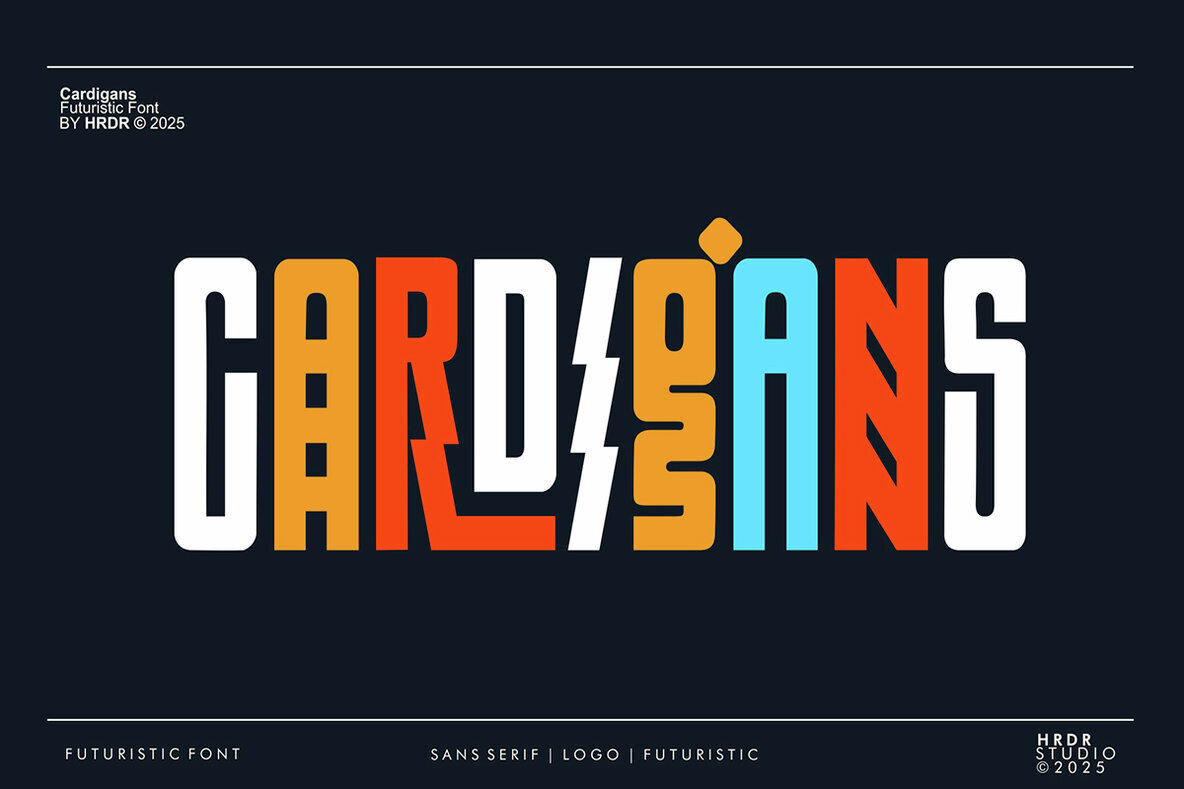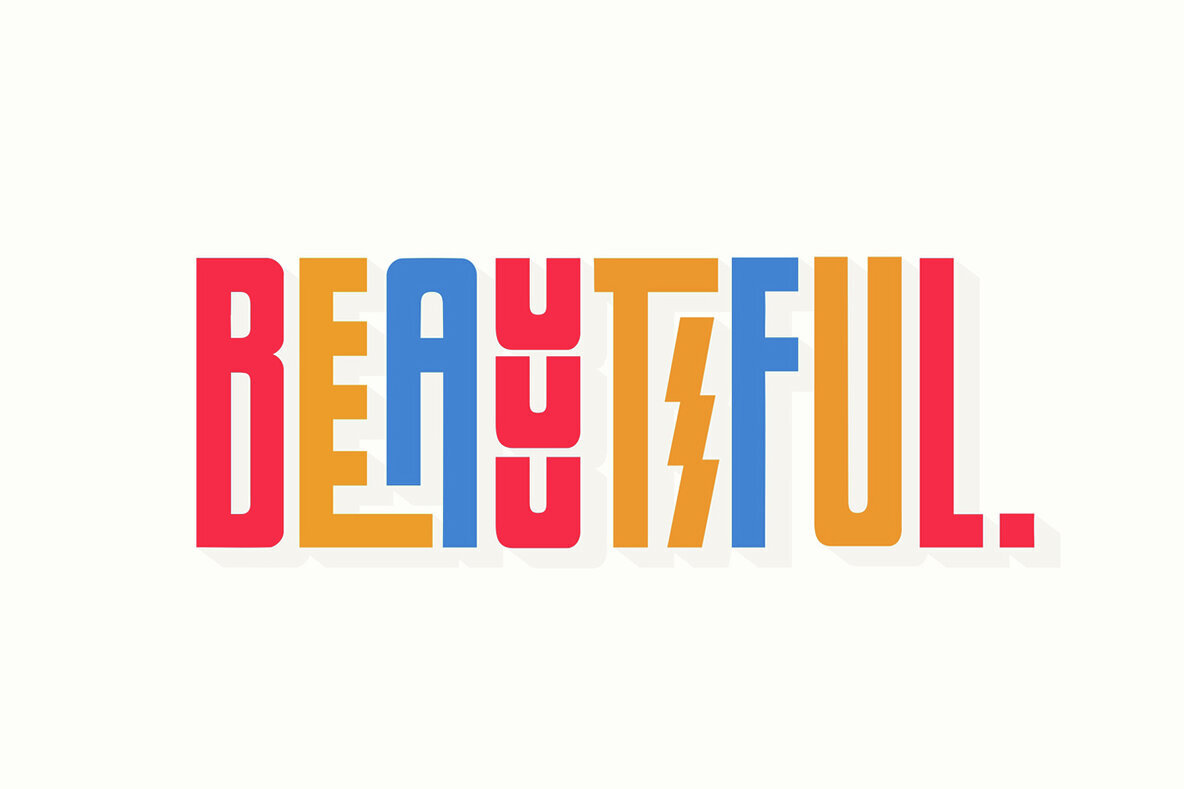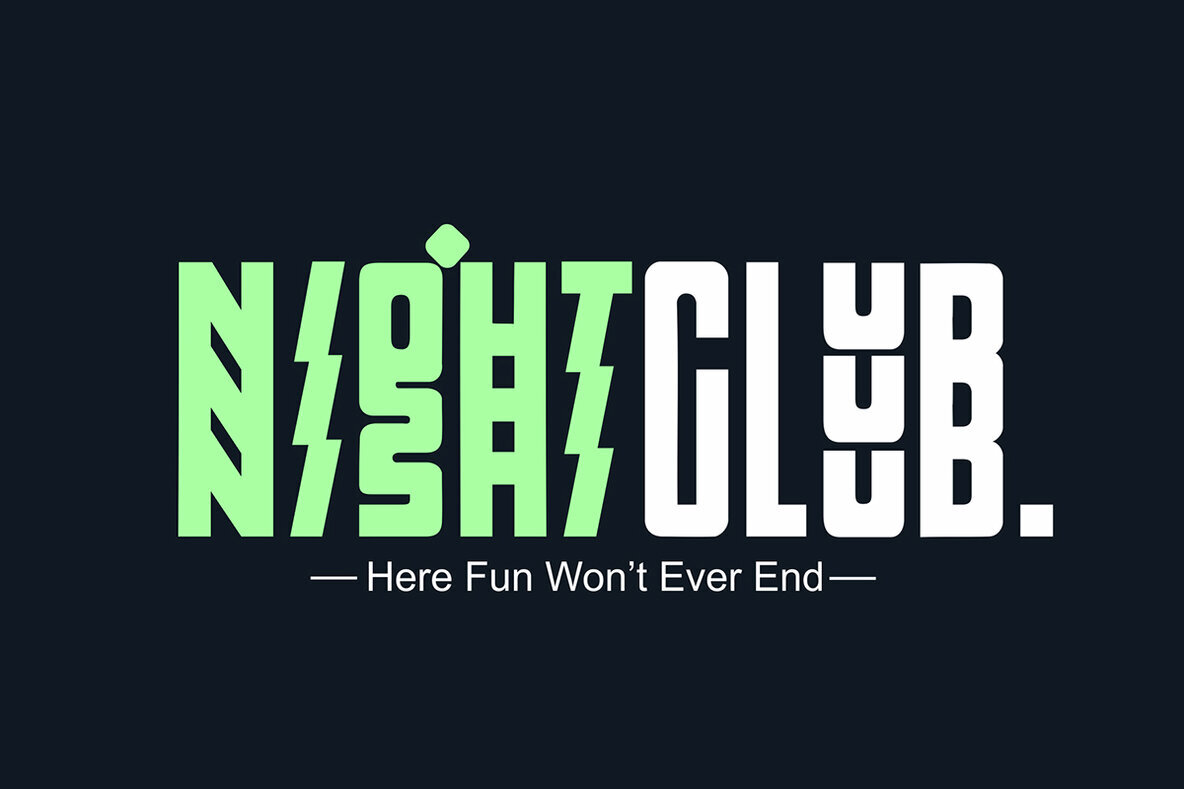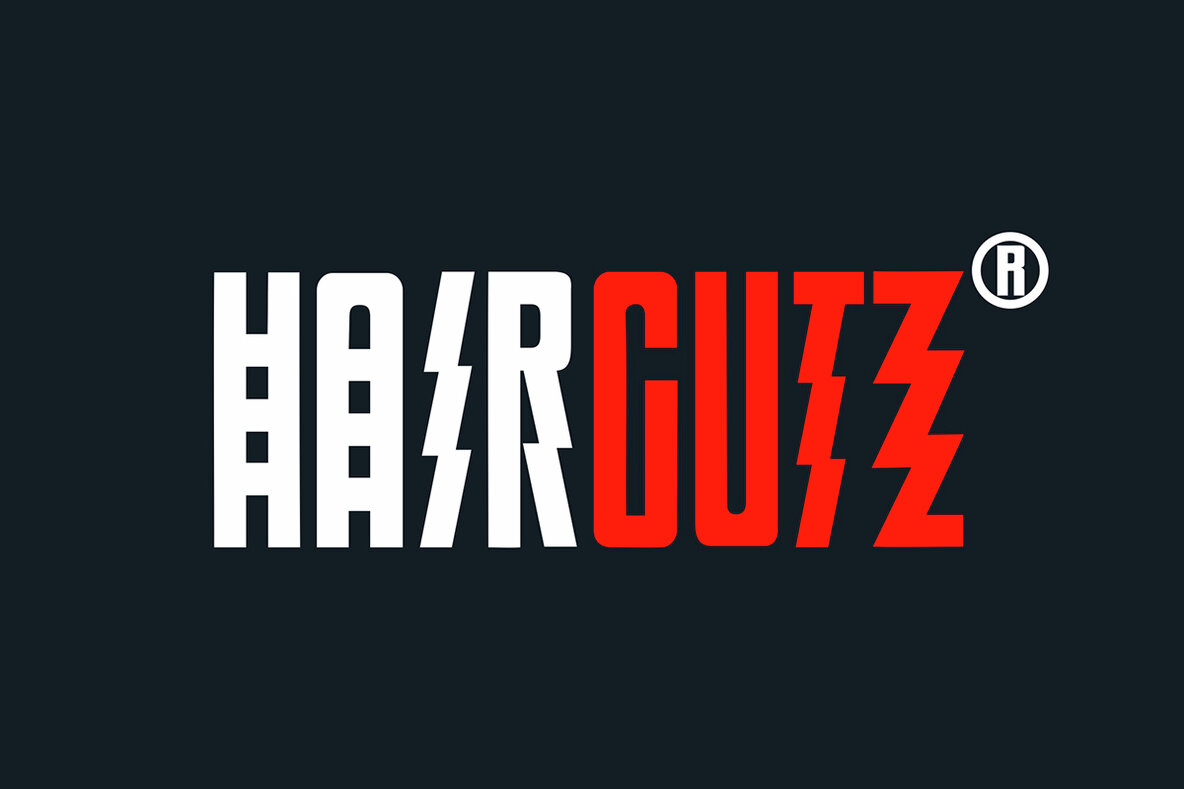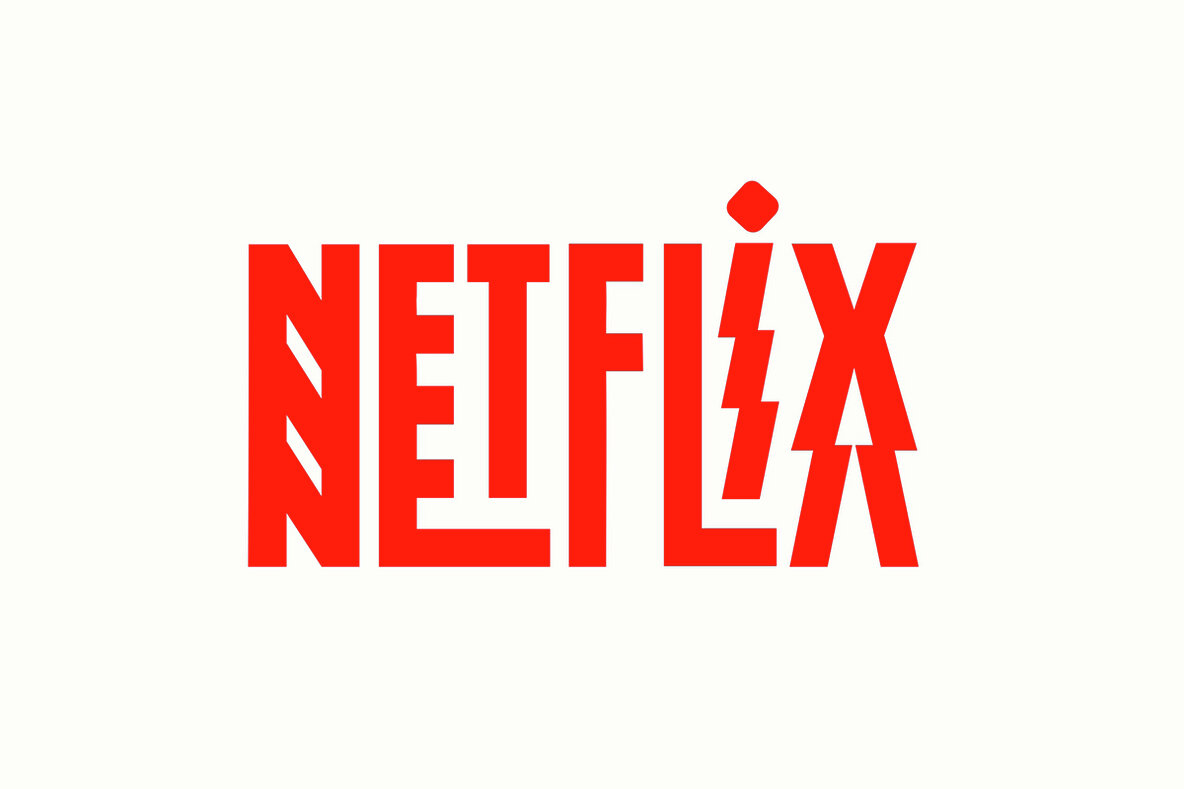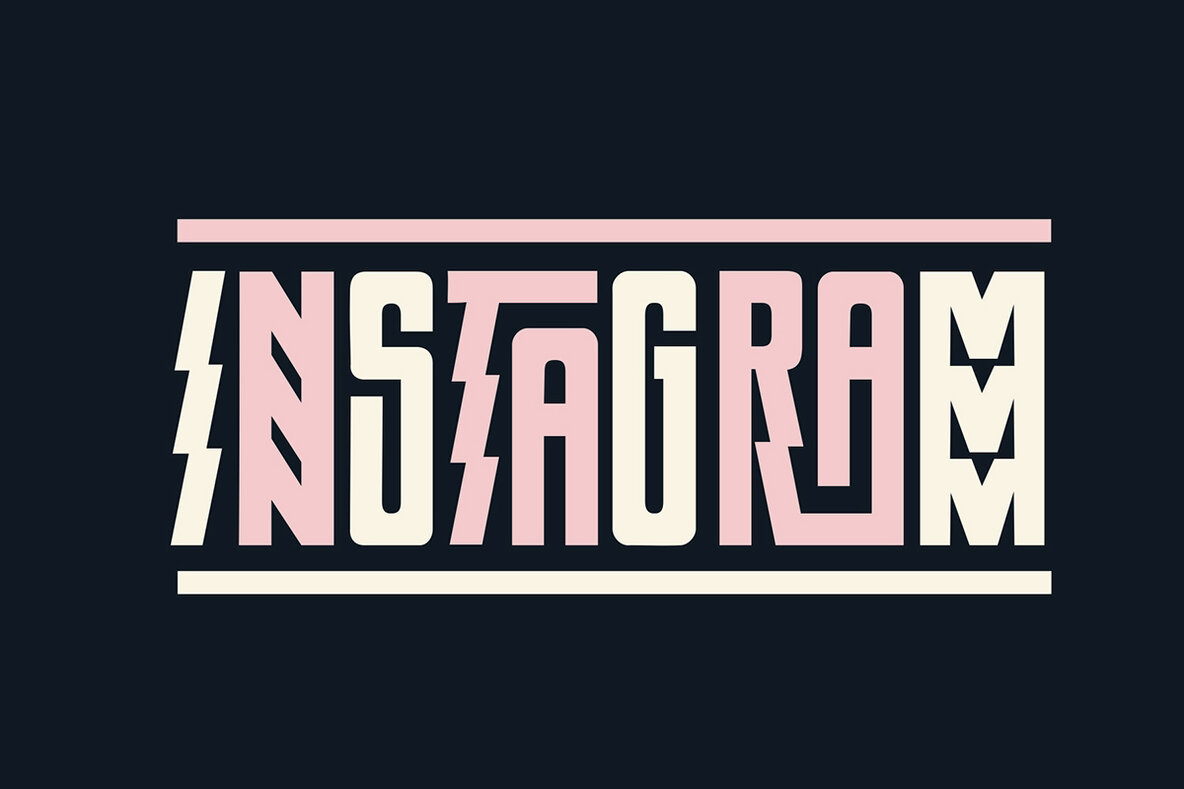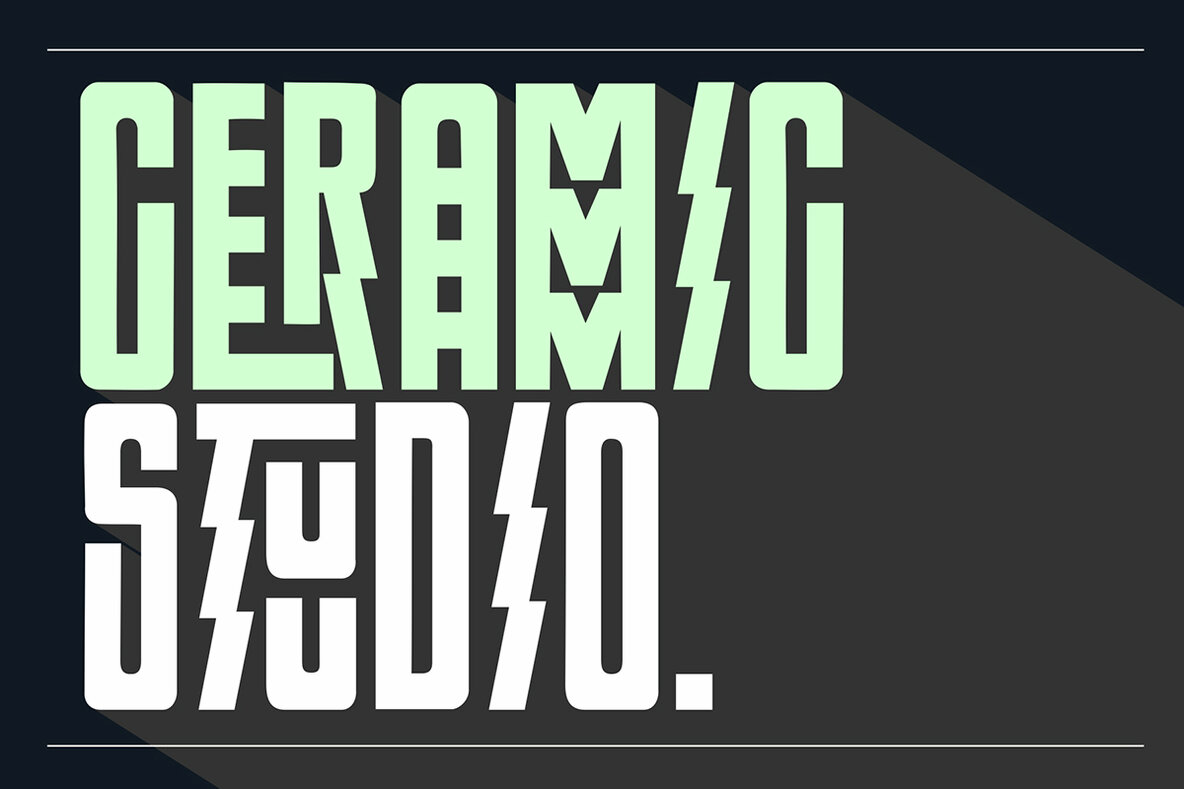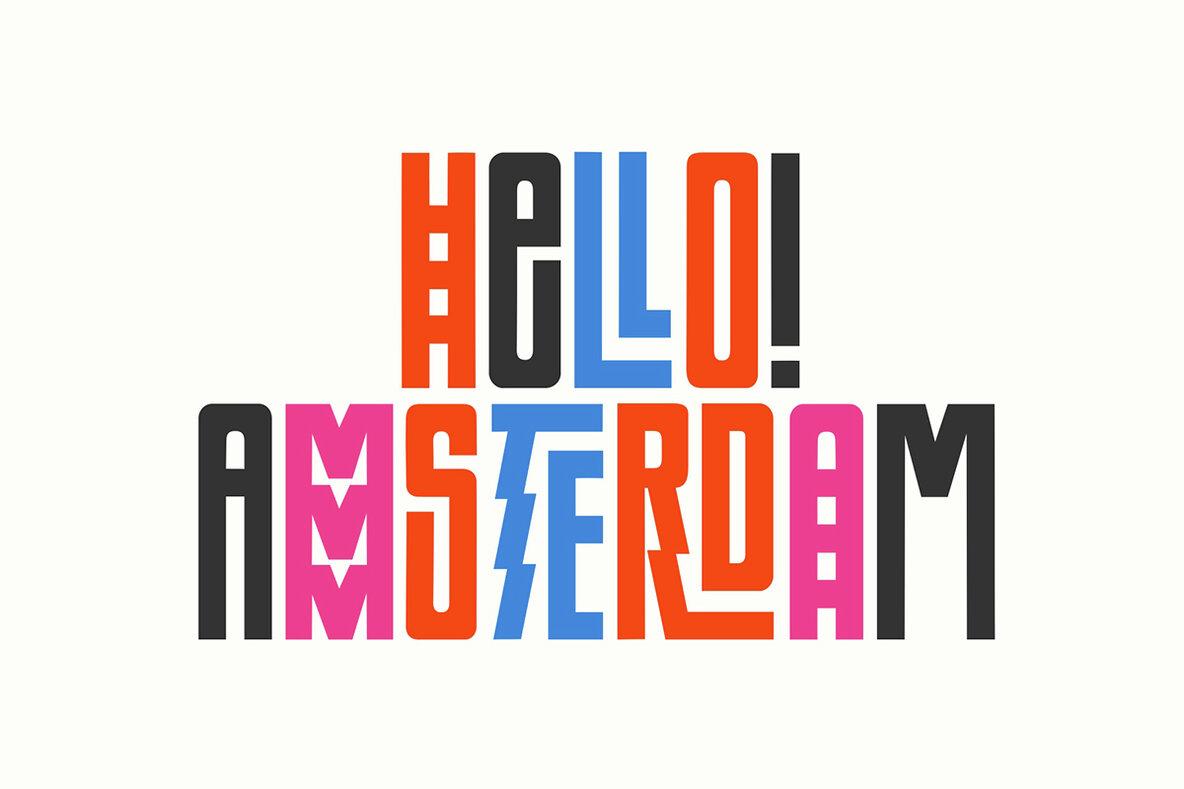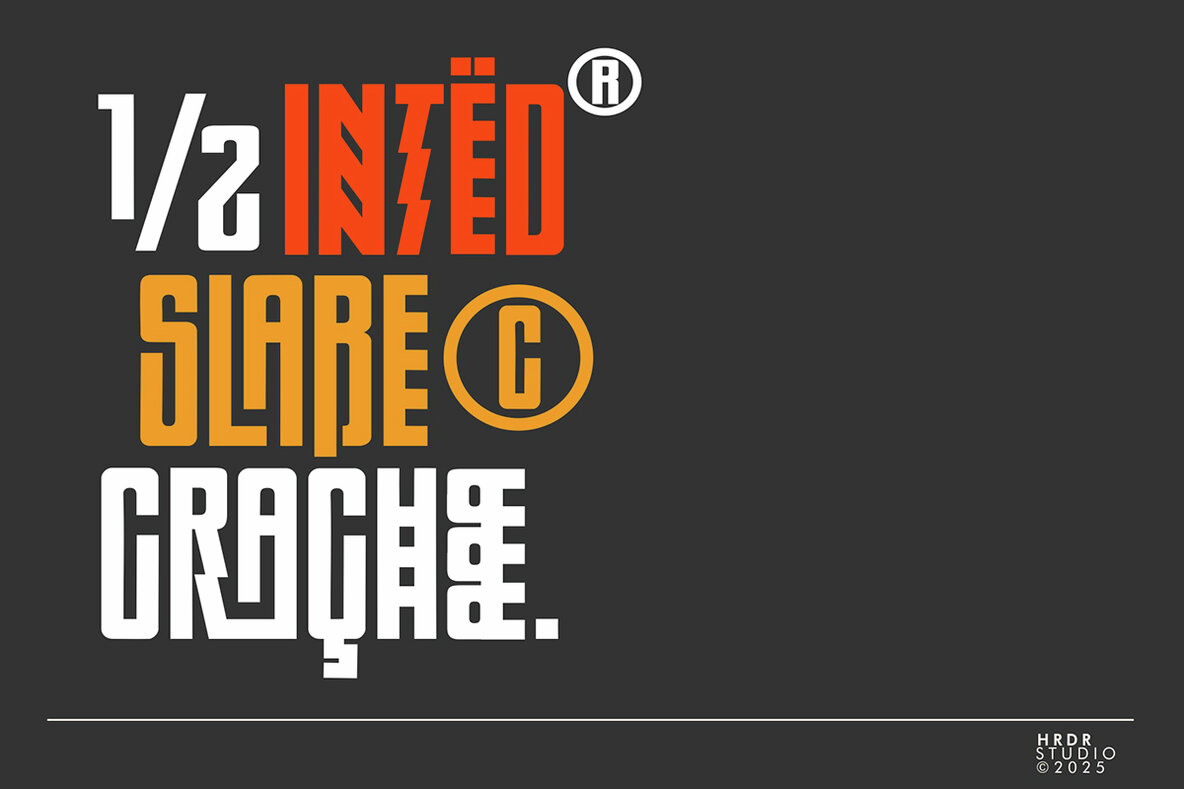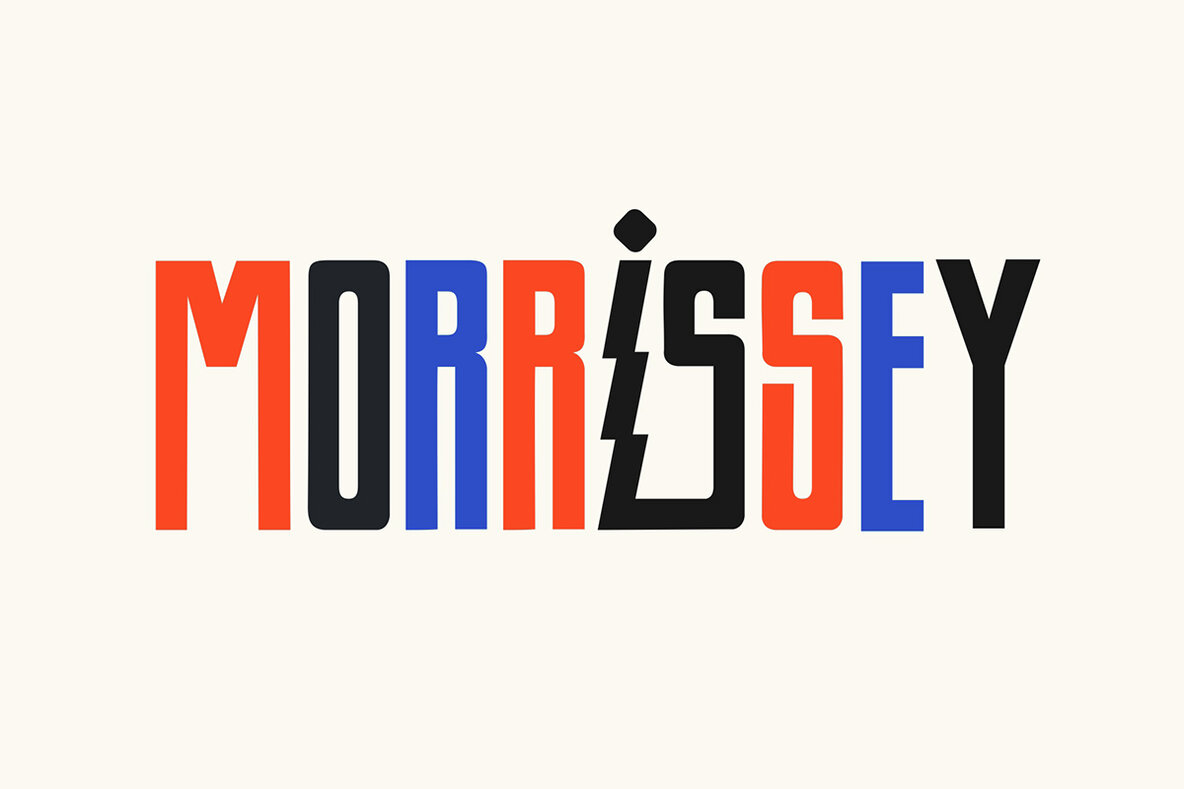
Cardigans Font
Cardigans
Cardigans is a futuristic sans serif font characterized by its modern, elegant, and cool design. It effortlessly combines an elegant and classy appearance with a stylish and contemporary look, making it both up-to-date and easy to use. Cardigans is designed for branding, making it ideal for a variety of applications. Its versatility shines in:Cardigans: A Futuristic Sans Serif with Modern Elegance